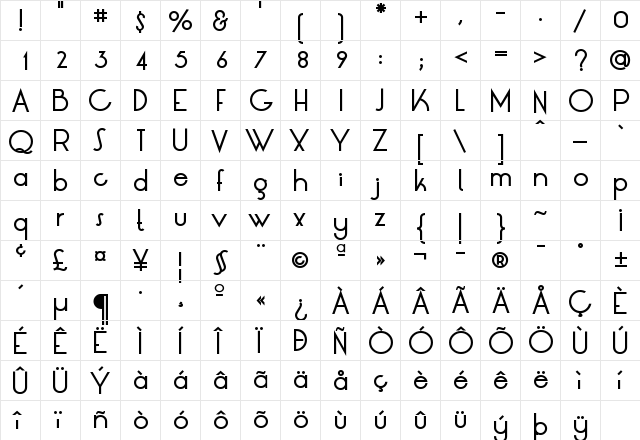
LT Oksana Medium Regular
| Designer | Lauren Thompson |
Design Context for LT Oksana Medium Typeface
LT Oksana Medium takes a measured approach to typography — its balanced proportions and neutral character make it a reliable workhorse for both digital and print work. The delicate stroke weight brings airiness and refinement to layouts.